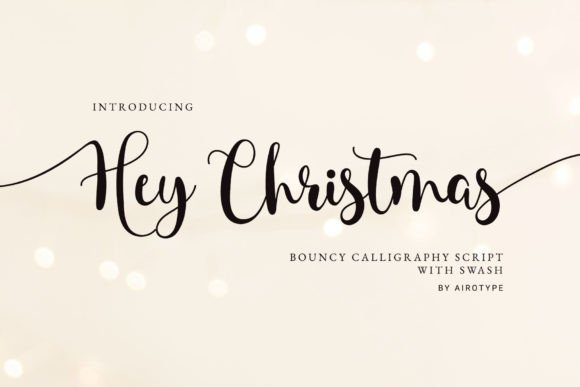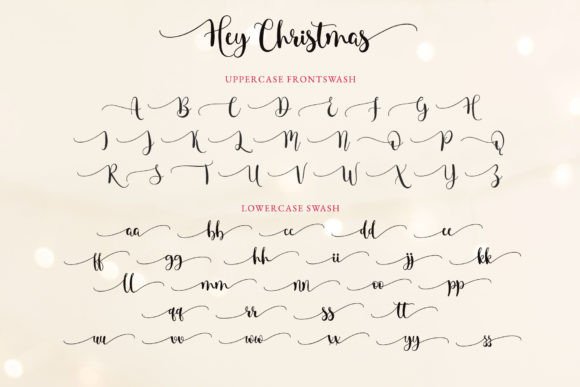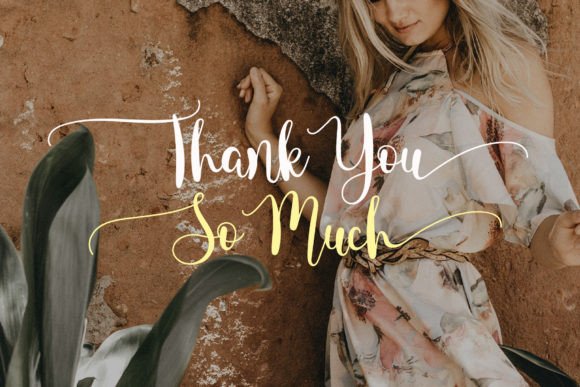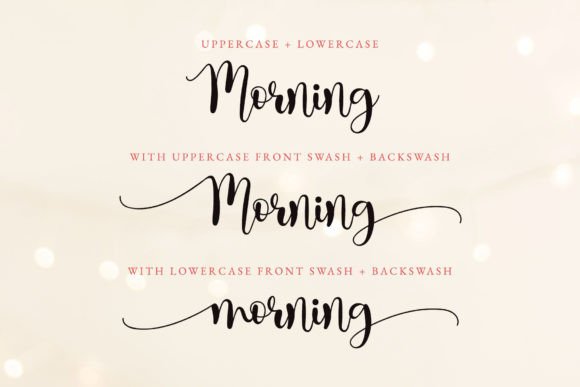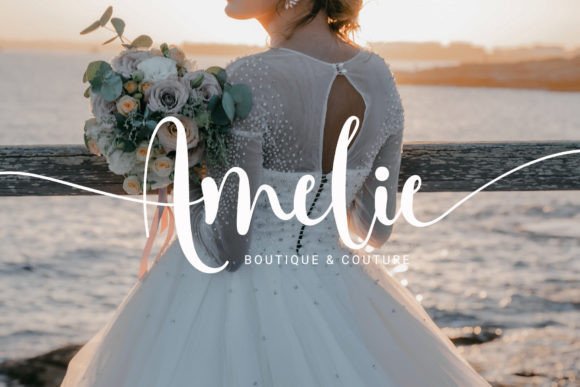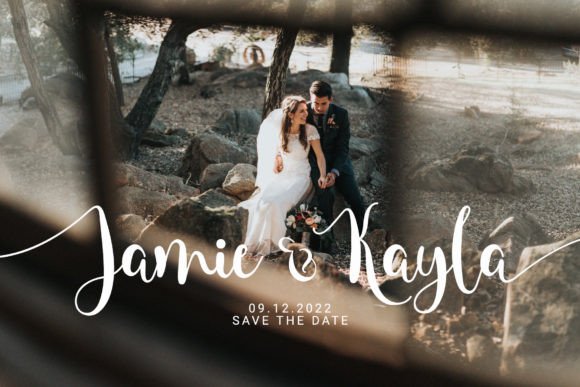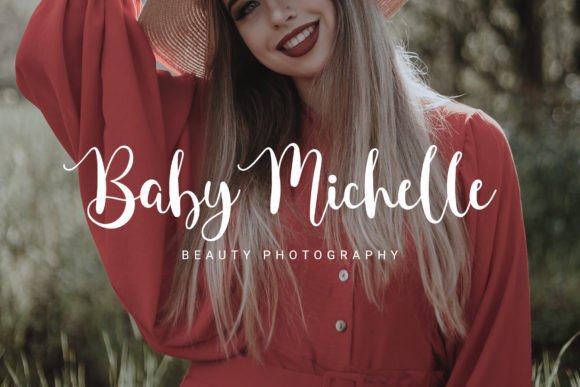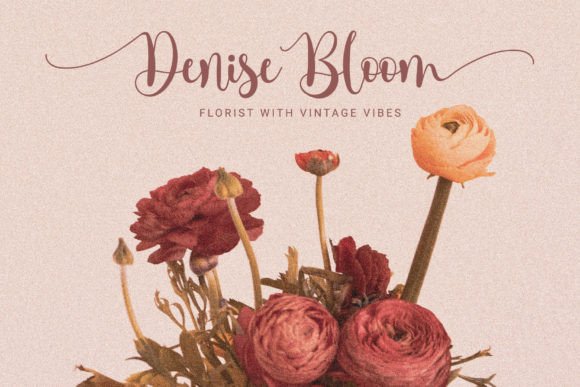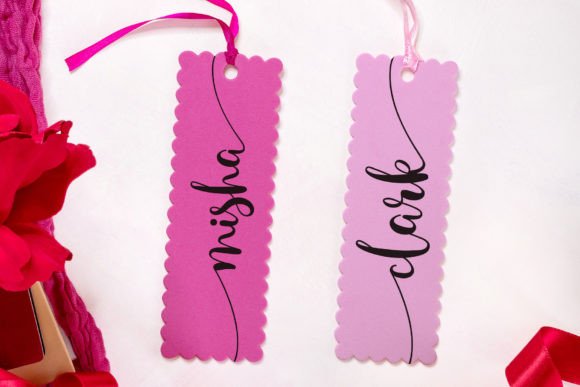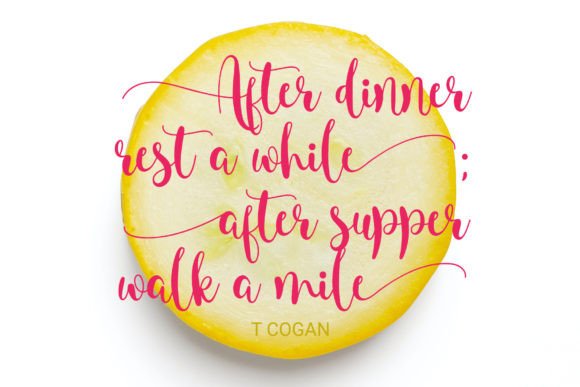
Hey Christmas Font
“Hey Christmas” is a delightful and bouncy script font that strikes a balance between playfulness and elegance. With its charming and well-crafted characters, this font is a perfect choice for adding a touch of holiday spirit and visual appeal to a variety of design projects.
The charm of “Hey Christmas” lies in its ability to convey a sense of playfulness while maintaining an elegant script style. The font’s letters possess a bouncy quality that brings a festive and joyful vibe to your designs. “Hey Christmas” effortlessly enhances your projects, making them feel cheerful and visually appealing.
“Hey Christmas” is versatile and adaptable, making it suitable for a wide range of creative applications. Whether you’re designing wedding invitations with a festive twist, crafting holiday-themed t-shirt designs, creating stickers or sublimation prints, “Hey Christmas” is a font that adds a sense of holiday cheer and elegance to your projects.
Incorporating “Hey Christmas” into your design projects will likely result in outcomes that are not only cute and playful but also full of holiday-inspired typography and aesthetics. Its bouncy and elegant style makes it an excellent choice for creating designs that capture the essence of the holiday season and bring joy to your audience. Embrace the festive charm of “Hey Christmas” in your next project, and watch as it elevates the visual impact of your typography and overall design, making them truly delightful and memorable.